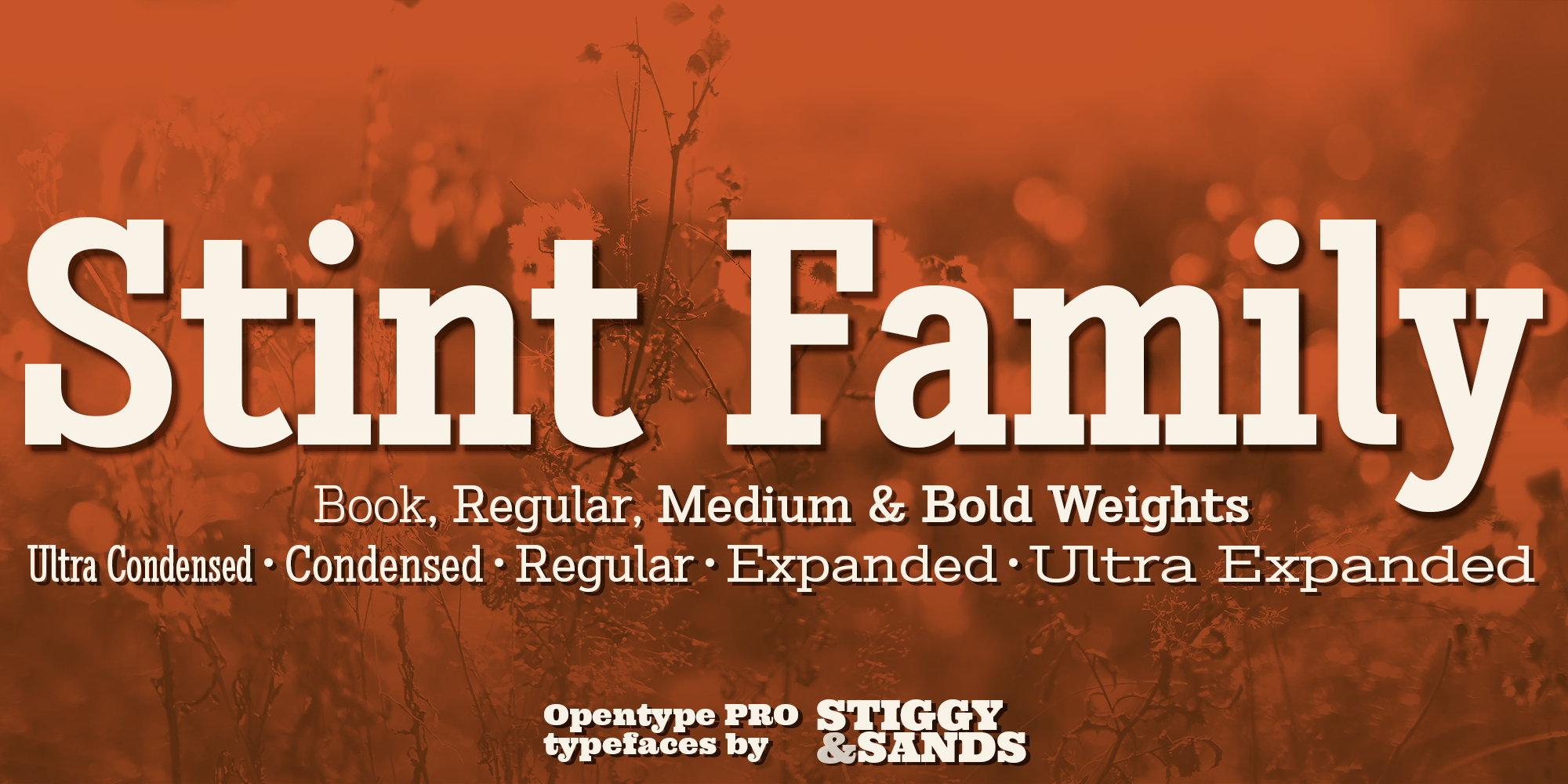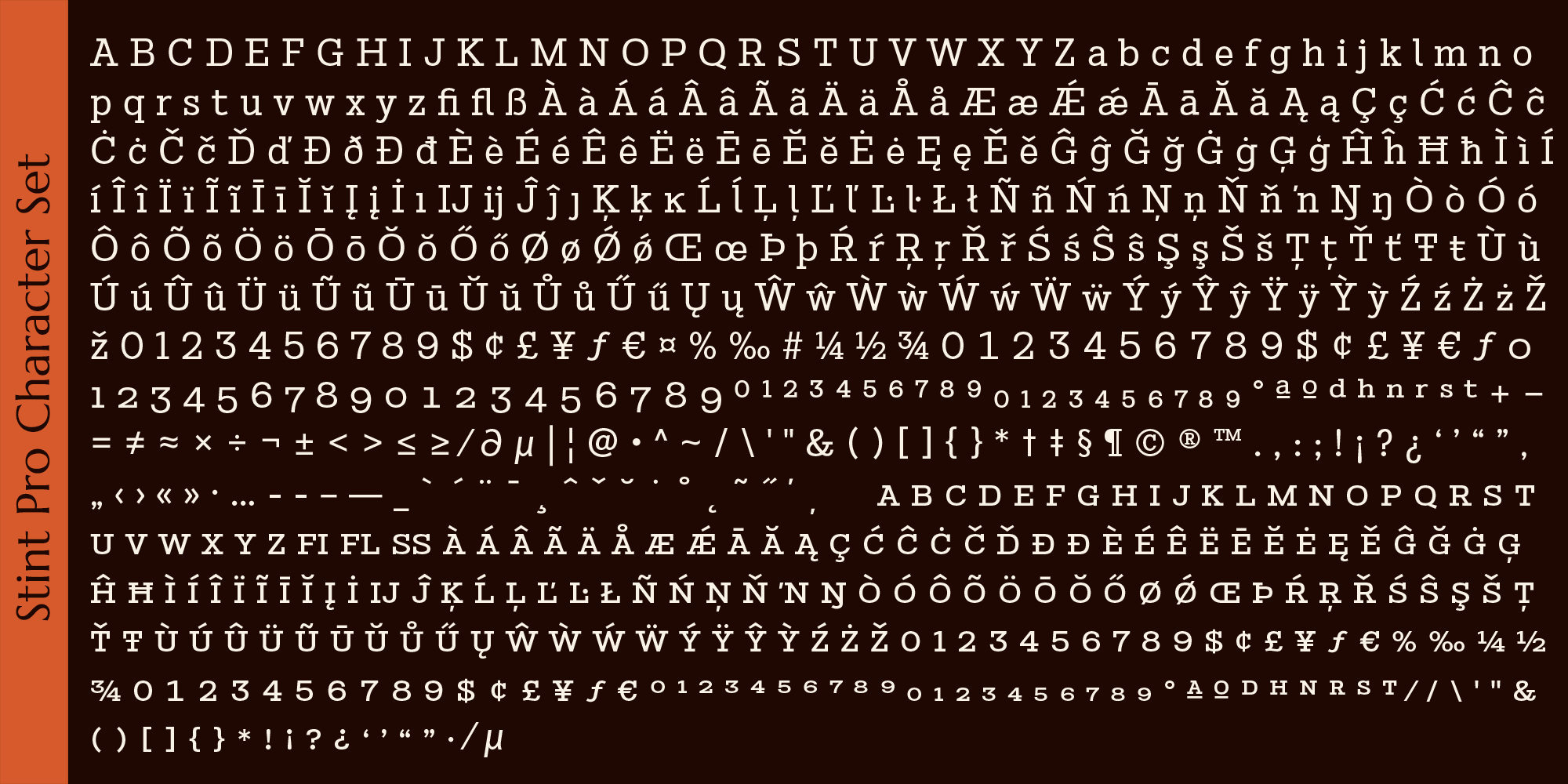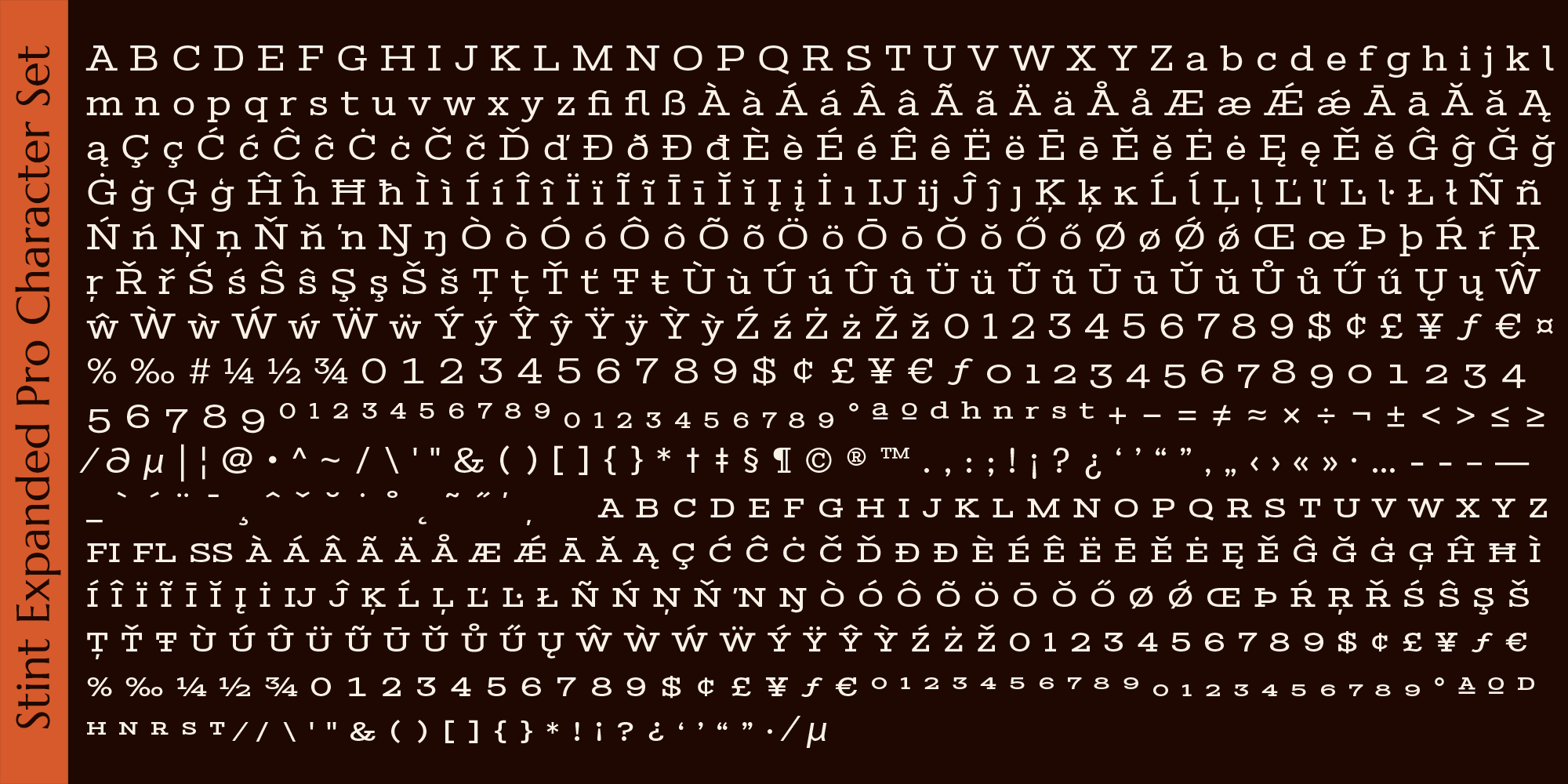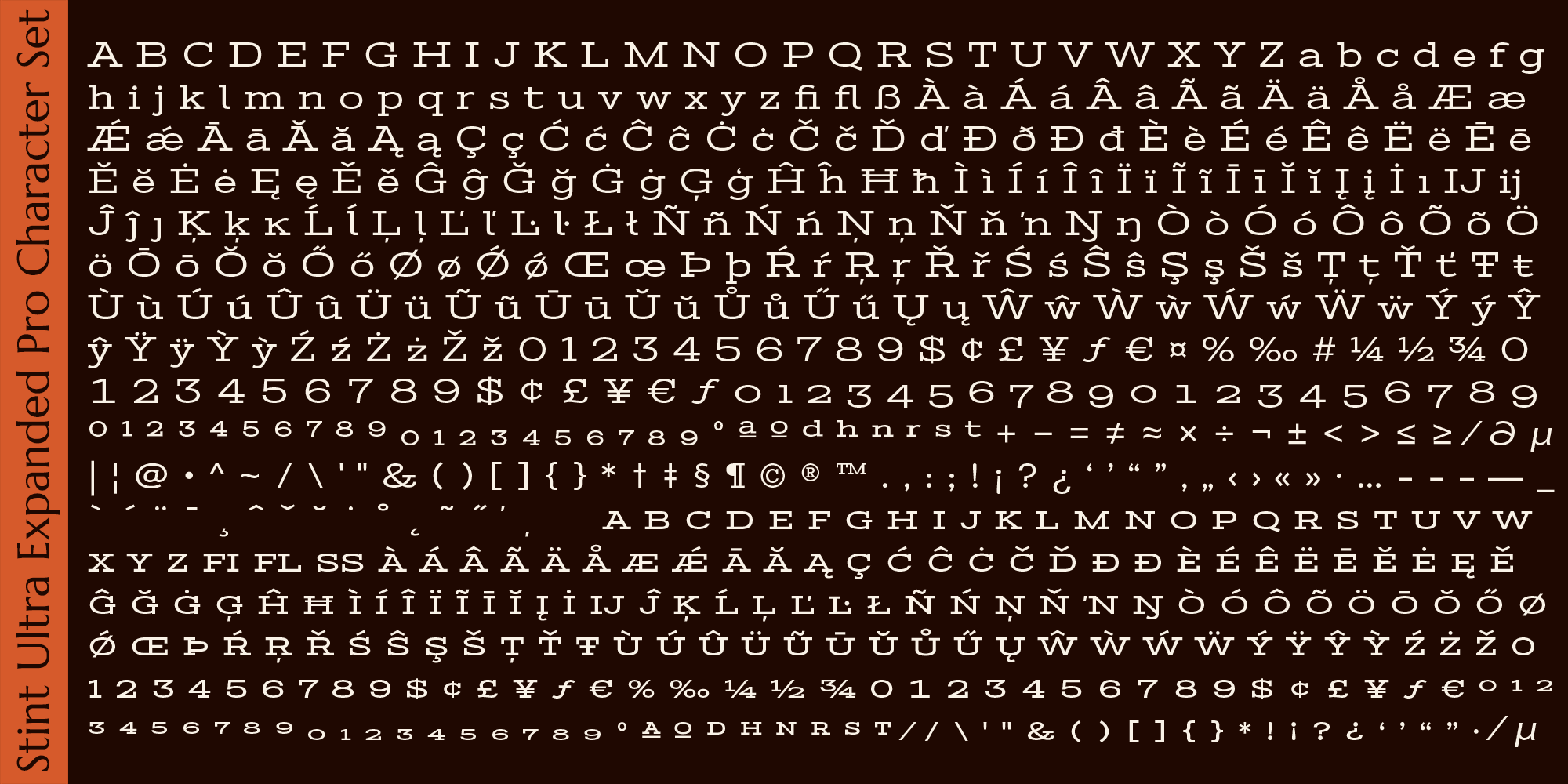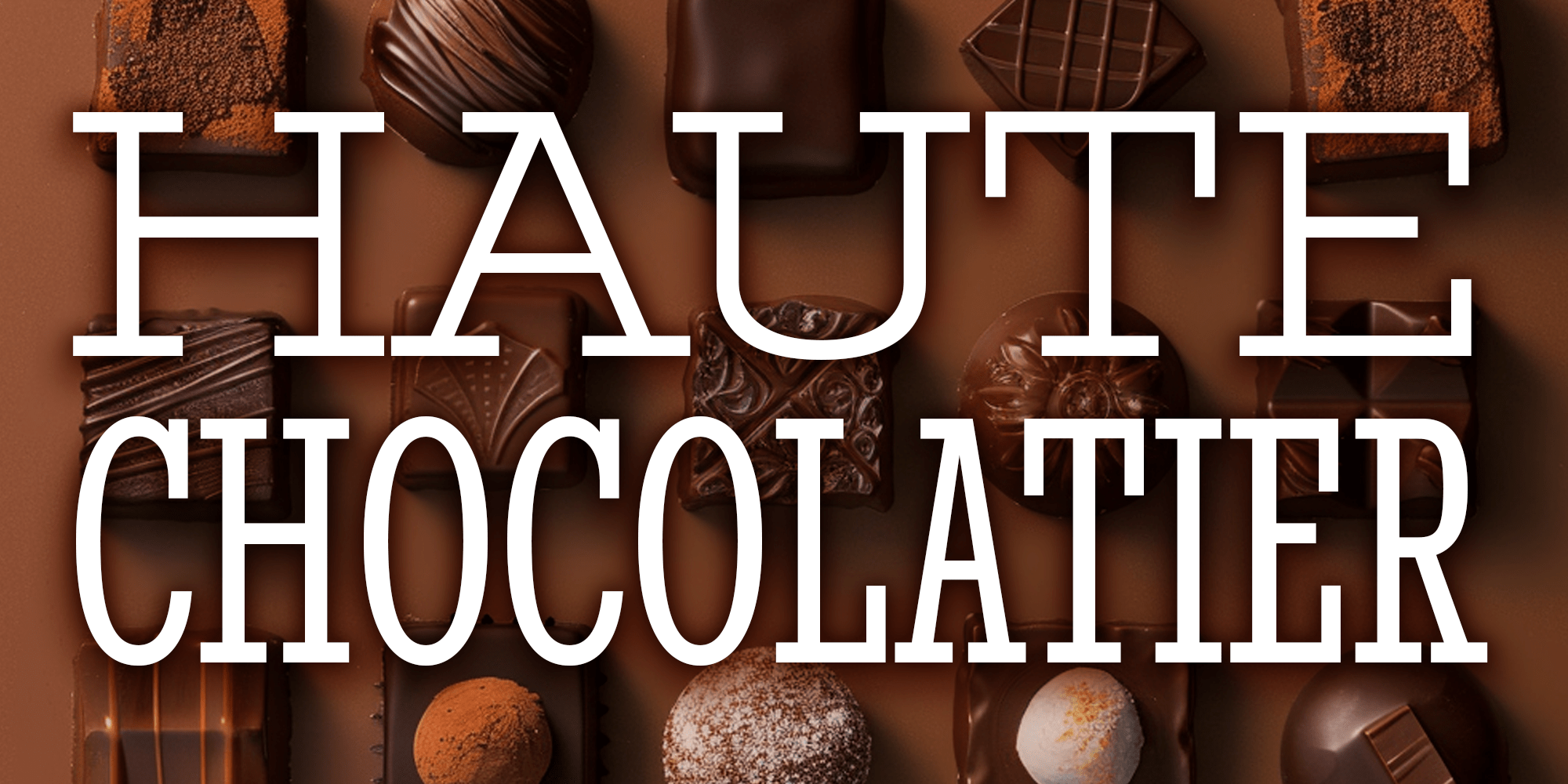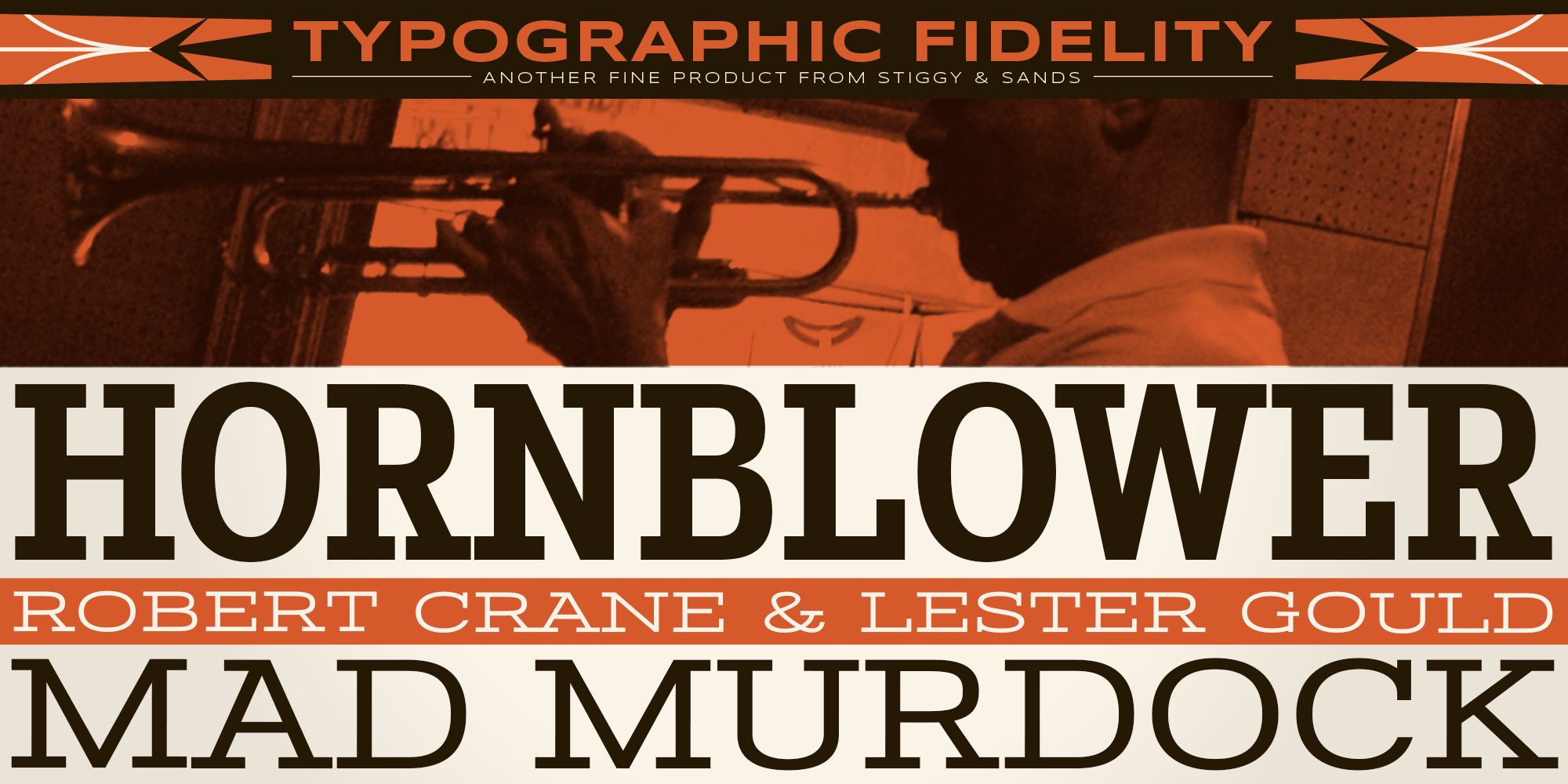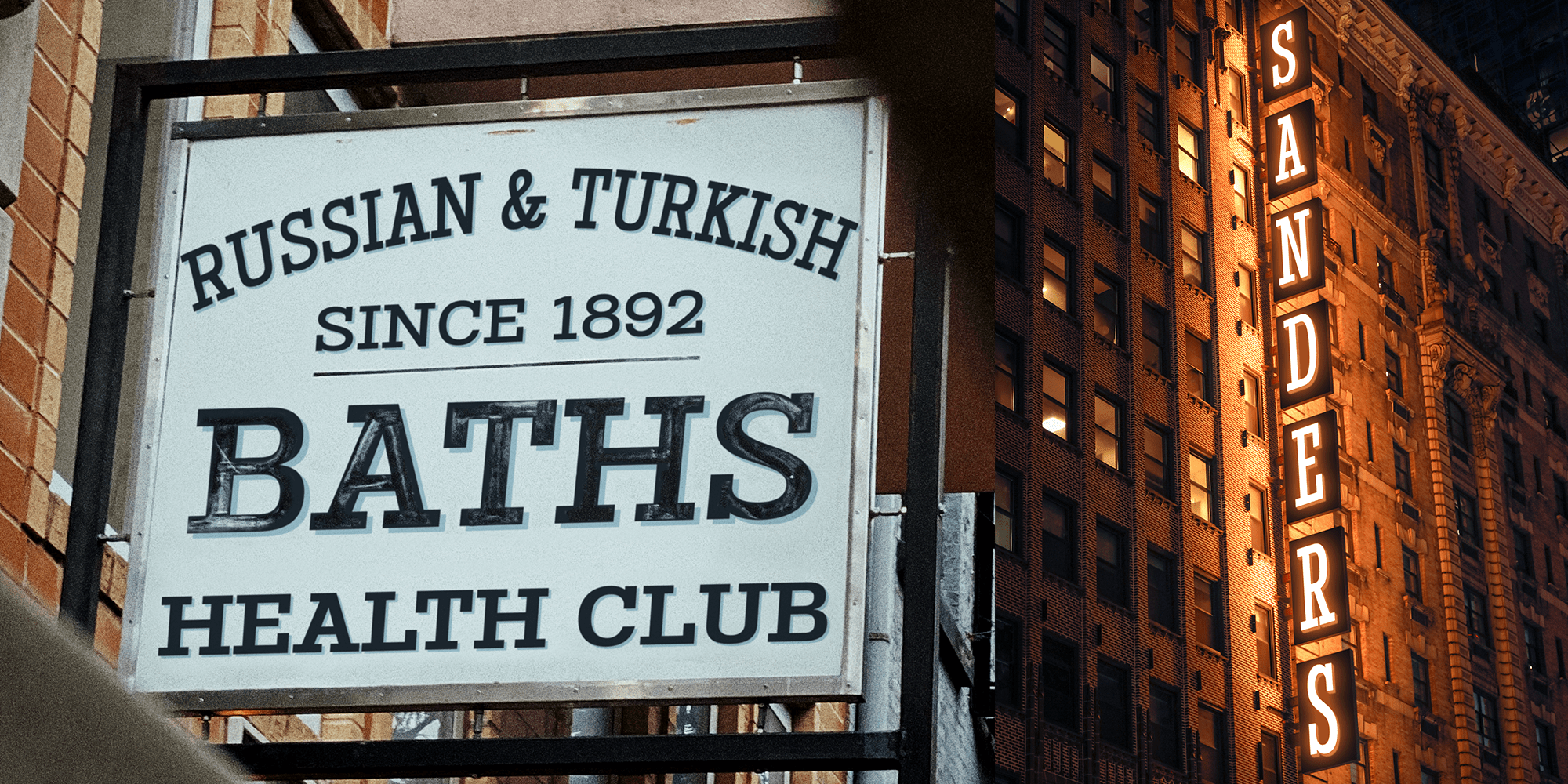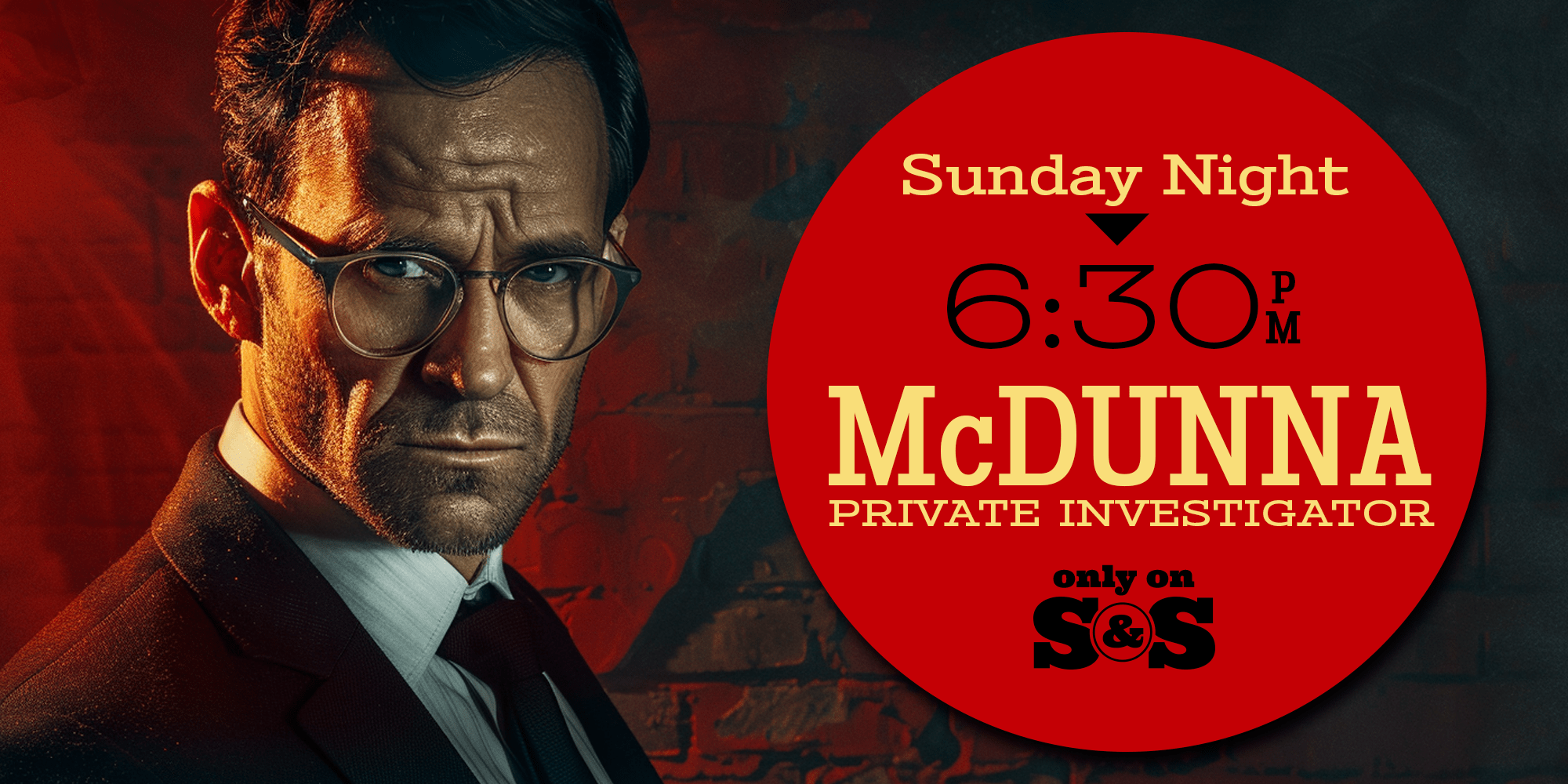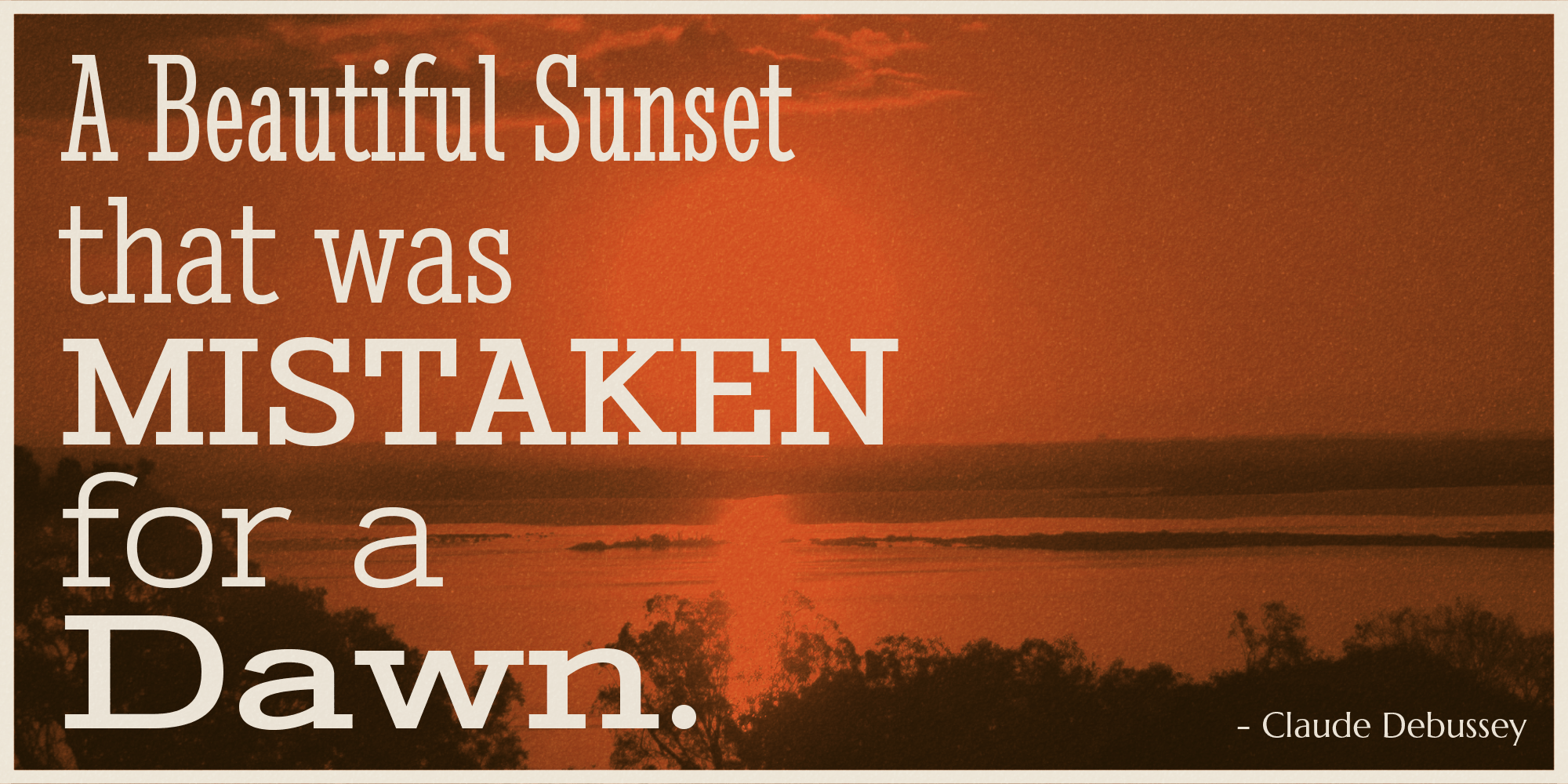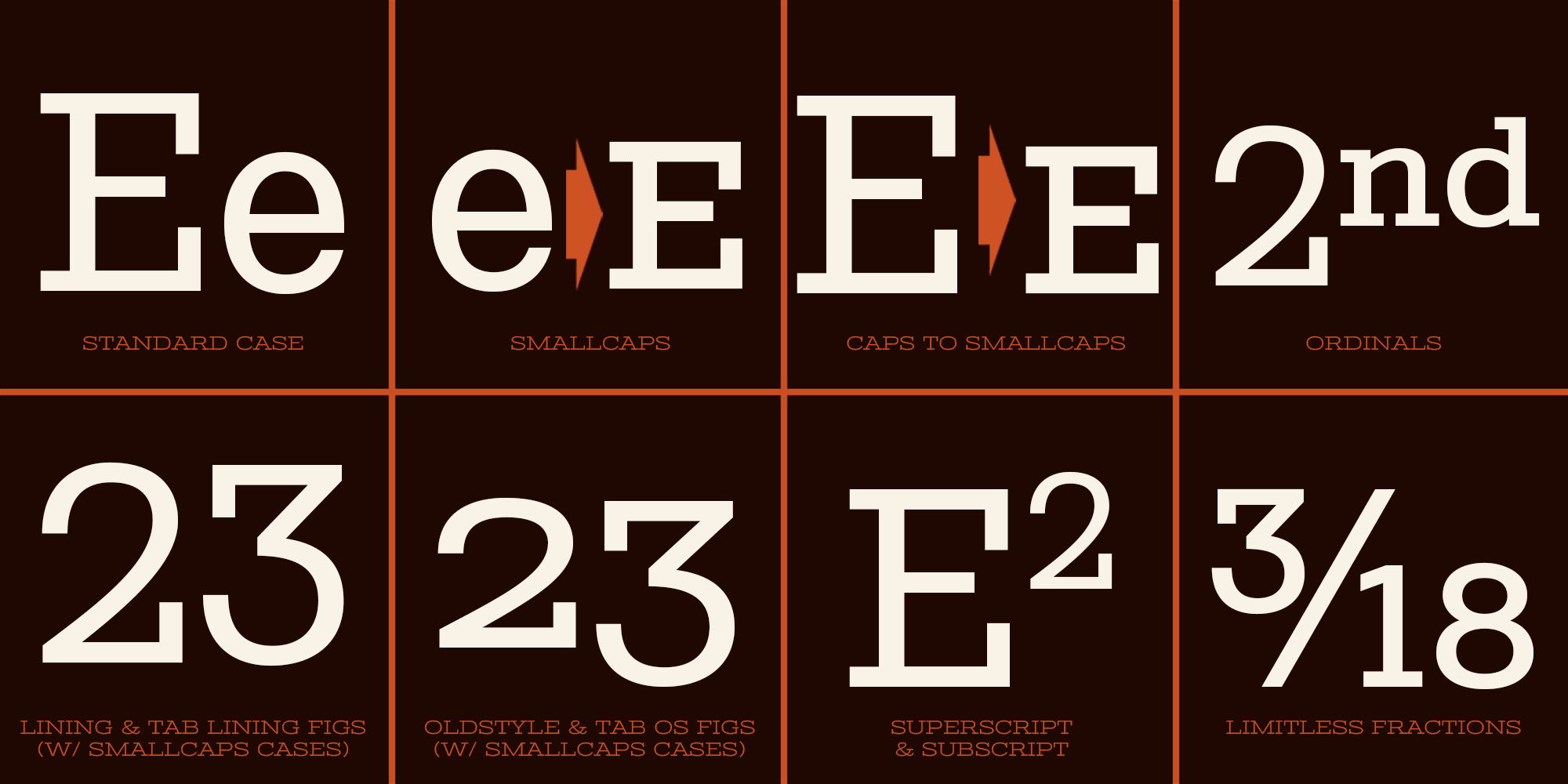
Stint Pro
Font Family by Stiggy & Sands
Our Stint Family was originally influenced by extra wide letterform styles and developed later to create an ultra condensed range of fonts and the widths in-between.
Highly legible throughout its width & weight ranges, the Stint Pro Family is both perfect for powerful headlines and copy, as well as for getting in as much information as possible into limited realty websites, just as much as when realty on websites and designs is less of a concern and the wider widths can play.
A small caps feature within all of the widths and weights gives this family more versatility and a serious tone, while the Stylistic Alternates feature offers a Caps to SmallCaps feature. Reserved and straightforward, with subtle distinctive notes of its own, the Stint Pro Family presents a visually strong yet subdued visual dynamic.
Opentype features include:
- SmallCaps.
- Full set of Inferiors and Superiors for limitless fractions.
- Tabular, Proportional, and Oldstyle figure sets (along with SmallCaps versions of the figures).
- Stylistic Alternates for Caps to SmallCaps conversion.